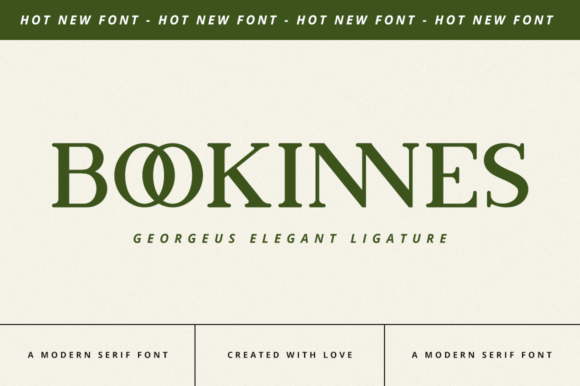
An Honest Review: What I Love and What I Don’t
Bookinnes Font is a distinct, elegant, and authentic serif font that has become a true favorite in my design toolkit. Here’s what I love about it:
- ✨ Elegant and sophisticated design, perfect for high-end branding and luxury projects
- ✅ Wide range of OpenType features, including stylistic alternates and glyphs
- 💯 Highly legible and readable, even at small font sizes
- 🎨 Versatile and adaptable, suitable for various design applications, from print to digital
While Bookinnes Font is an excellent choice, it’s not without its quirks:
- 🤔 Some users might find the font’s elegance and sophistication a bit too refined for casual or playful projects
- ⚠️ Limited availability of certain language scripts and special characters
The Story Behind Bookinnes: A Designer Inspiration
Bookinnes Font was designed with the goal of creating a elegant and sophisticated serif font that would meet the needs of designers and crafters. The font’s creator drew inspiration from classic typography and modern design trends to craft a unique and versatile font.
| What is Bookinnes Font? | Bookinnes Font is a distinct, elegant, and authentic serif font designed for high-end branding, luxury projects, and creative applications. |
| Is Bookinnes Font suitable for body text? | While Bookinnes Font is elegant and refined, it may not be the best choice for body text due to its sophisticated and luxurious feel. However, it can be used for body text in certain contexts, such as luxury editorials or high-end publications. |